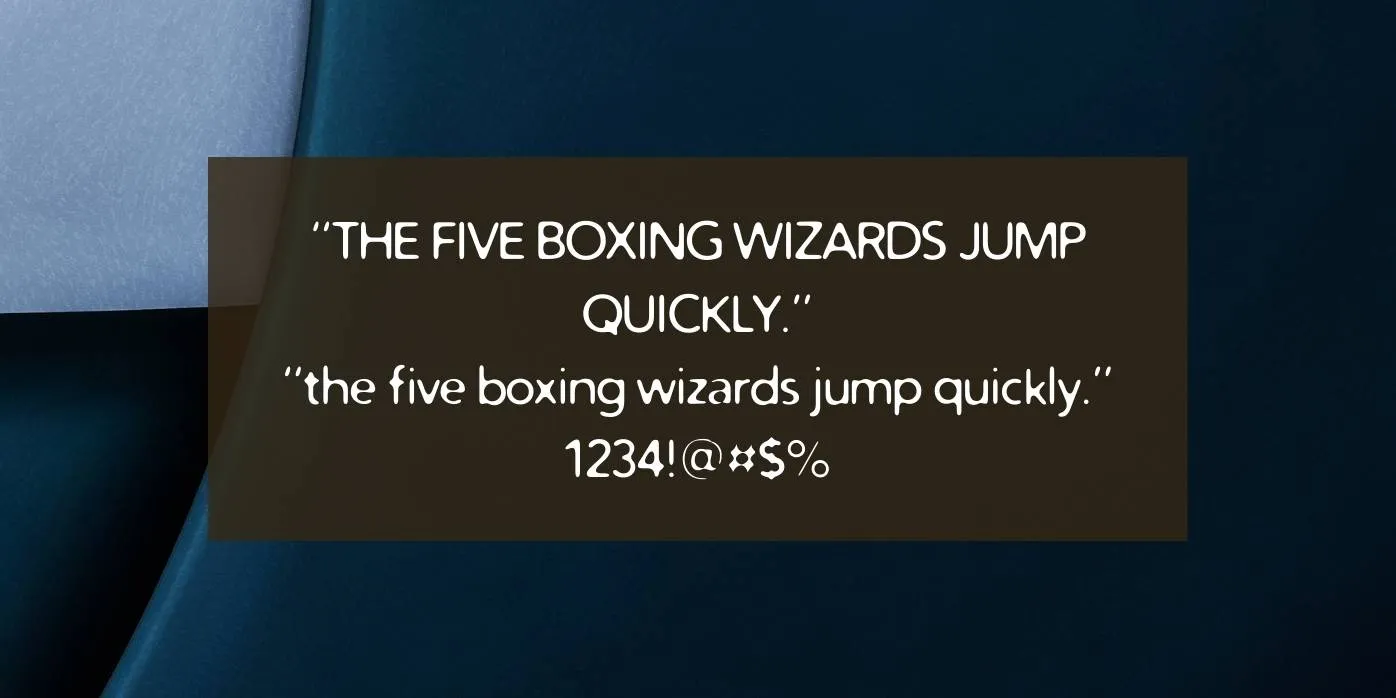
Distro Font
Distro Font is a very famous typeface that is specifically designed for use with Linux distributions. This typeface was created by Peter Ramsey & Apostrophe. It belongs to the display font family. While there are many different types of fonts out there, Distro Fonts are designed to be particularly well-suited for display on Linux systems.
The regular and bold weights are good for general-purpose use, while the black weight is great for headlines or other high-impact text.